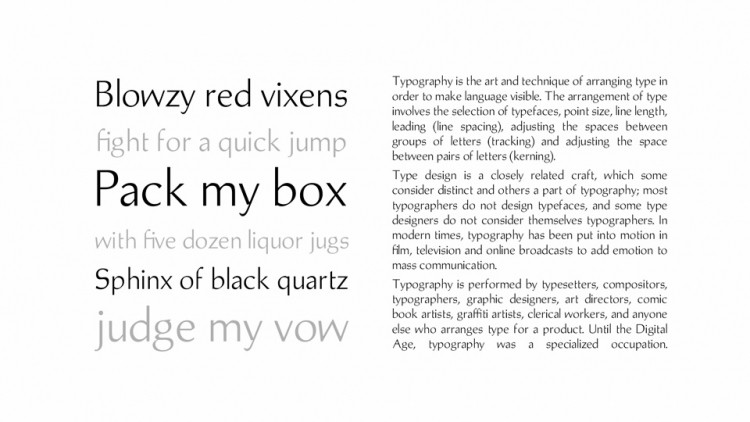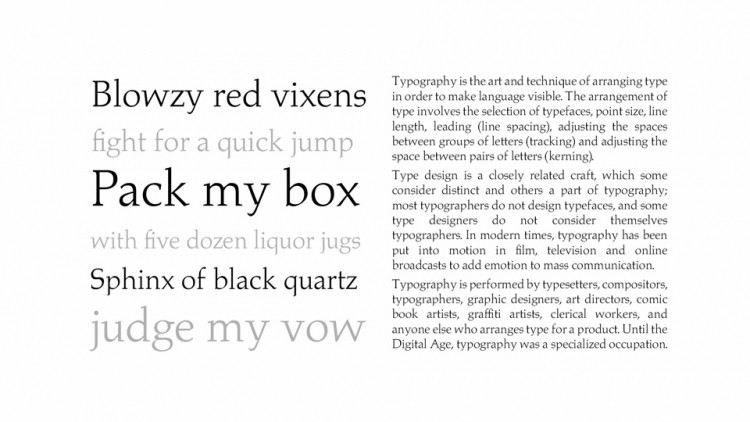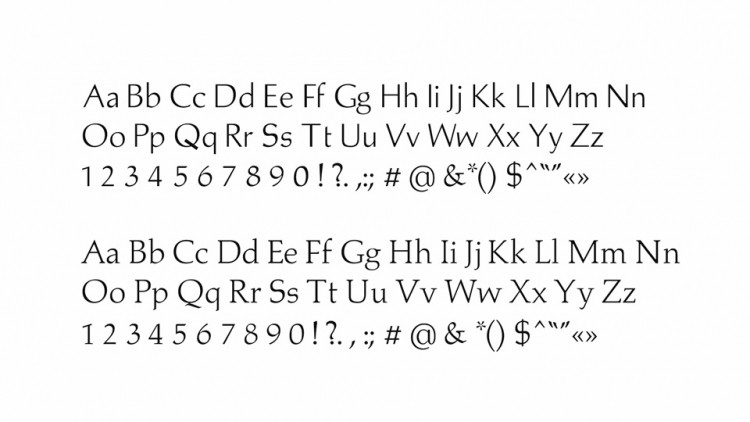
Unoverso Neue Serif Font
It’s a serif font with a modern & elegant touch. The thin character is perfect for the design needs of a modern & elegant layout. It’s an old style variable typeface based on the Palatino by Hermann Zapf. It comes with Serif and Sans versions.
Unoverso Neue with its high legibility works well for both text and display typography.